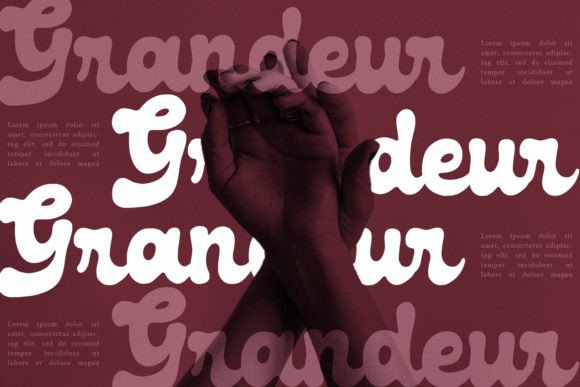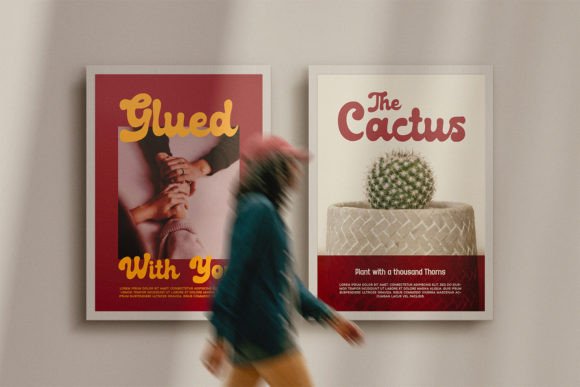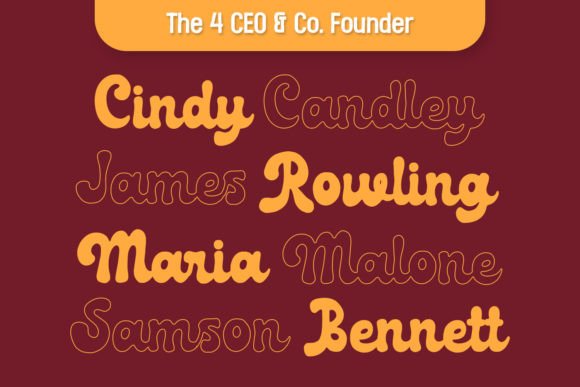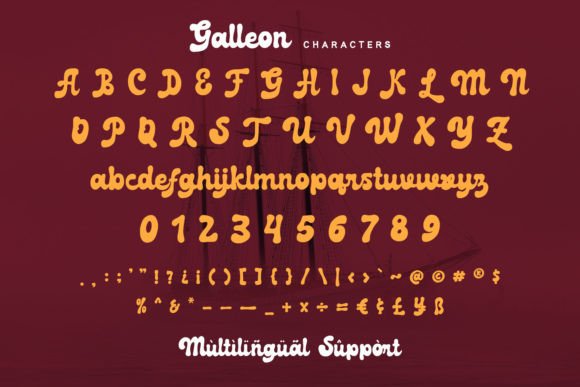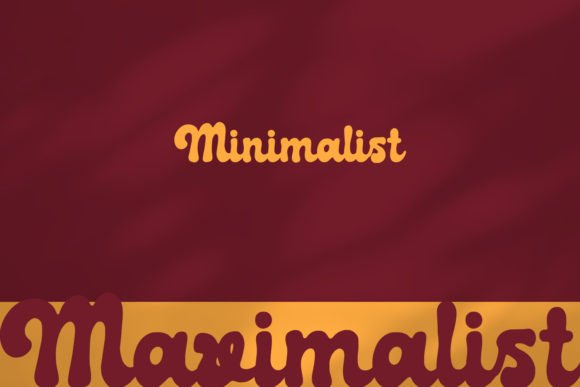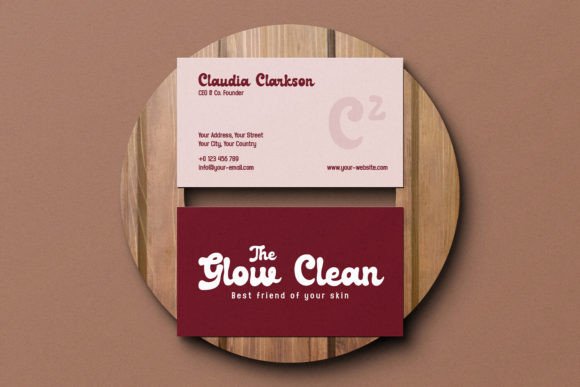
The Galleon Font: A Stylish, Bold Script to Elevate Your Designs
I’ll never forget the design project that led me to discover the Galleon font. I was working on a luxury branding campaign for a high-end yacht company, and I needed a font that exuded elegance, power, and sophistication. After hours of searching, I stumbled upon Galleon, and it instantly became the perfect fit. Its dynamic curves and strong presence commanded attention, and I knew I had found the one.
- ✅ Confidence-inspiring strokes: Galleon’s bold script is perfect for logos, headlines, and branding, exuding elegance and power.
- ✅ Sophistication with impact: This font seamlessly blends style with a strong presence, making any design stand out effortlessly.
- ✅ Versatility: Galleon works beautifully in both digital and print formats, from business cards to billboards.
- ⚠️ Legibility at small sizes: Galleon’s bold strokes can become overwhelming at very small font sizes (below 10pt). Use with caution.
- ⚠️ Limited use in body text: Due to its bold nature, Galleon is best suited for headlines and titles rather than lengthy paragraphs.
Galleon’s design inspiration comes from the majestic sailing ships of the 17th century. The font’s creator aimed to capture the essence of these powerful vessels, with their sweeping curves and sturdy masts. The result is a font that embodies both elegance and strength, perfect for designs that demand attention and sophistication.
Q: What makes Galleon suitable for luxury branding?
A: Galleon’s confident strokes, elegant curves, and strong presence evoke a sense of sophistication and power, making it an excellent choice for luxury brands.
Q: Can I use Galleon for body text?
A: While Galleon is best suited for headlines and titles, it’s not ideal for lengthy body text due to its bold nature. However, it can be used for short paragraphs or quotes to add emphasis.
Q: Does Galleon support OpenType features?
A: Yes, Galleon supports OpenType features, including stylistic alternates, glyphs, and stylistic sets. These features allow you to add variety and creativity to your designs.
Q: Can I use Galleon for digital and print designs?
A: Absolutely! Galleon works beautifully in both digital and print formats, making it a versatile font for various design projects.